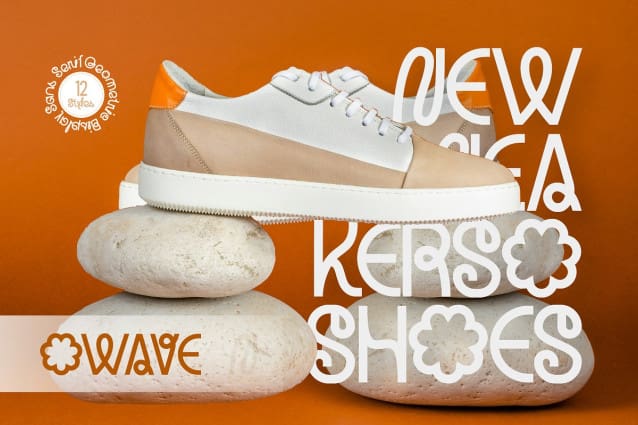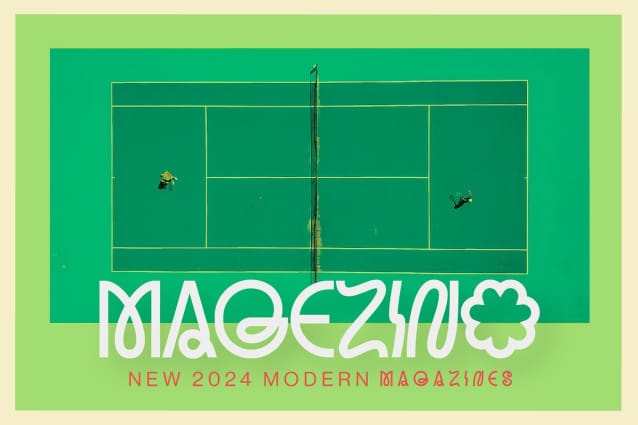
Gange Font
Gange Font is a Geometric Display Sans Serif with a ton of customization for your unique and standout designs.
Gange geometric display sans serif with over 57+ alternate glyphs for endless customization and creativity to control your projects.
This font will be perfect for photography, watermarks, social media posts, advertisements, logos & branding, invitations, product designs, labels, stationery, wedding designs, product packaging, subheaders or headers, special events, or anything.